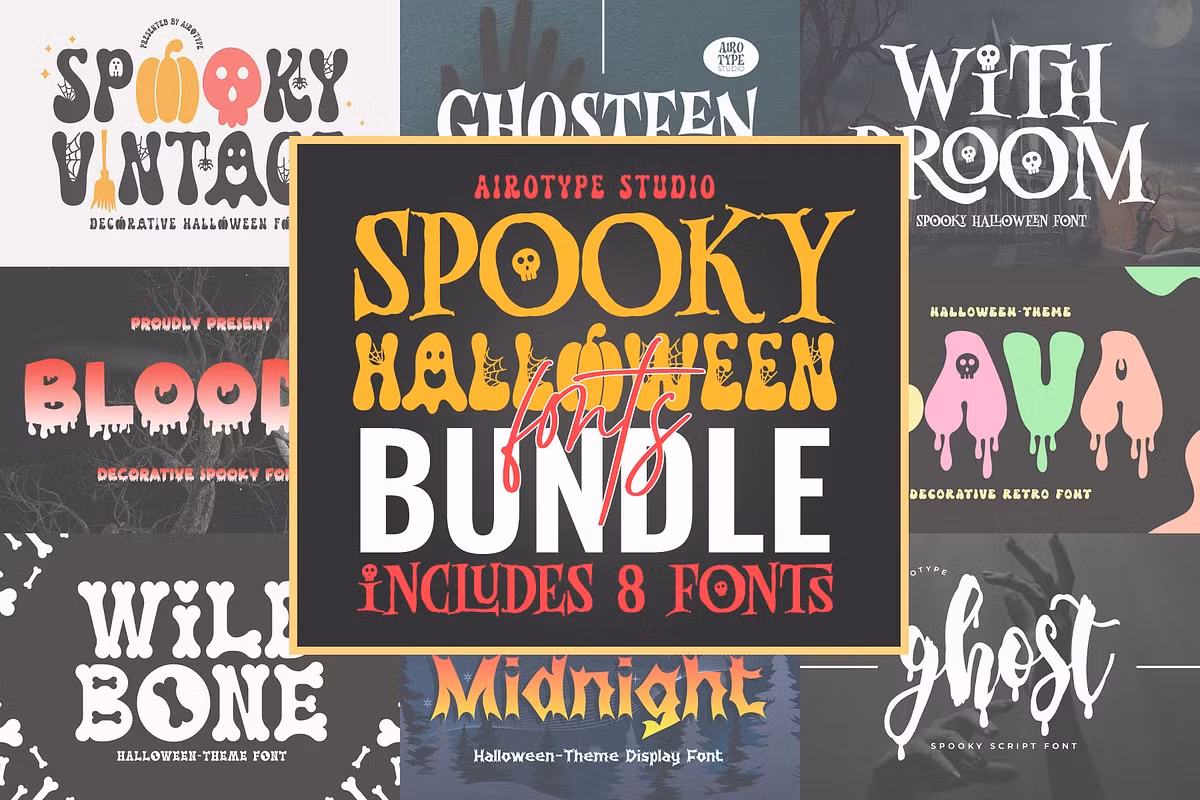
Halloween Font Bundle 8 Spooky Fonts Free Download
Halloween Font Bundle 8 Spooky Fonts Free Download is a thrilling collection of spooky and fun typefaces designed to bring eerie charm to your Halloween projects. Featuring 8 unique fonts, each with its own haunting personality, this bundle is perfect for creating creepy invitations, party posters, greeting cards, t-shirt designs, and anything that needs a dash of Halloween spirit.
From dripping fonts to eerie, jagged letterforms, these fonts add the perfect amount of spookiness to your designs. Whether you're planning a haunted house event or designing festive merchandise, Halloween Font Bundle 8 Spooky Fonts Free Download has you covered.